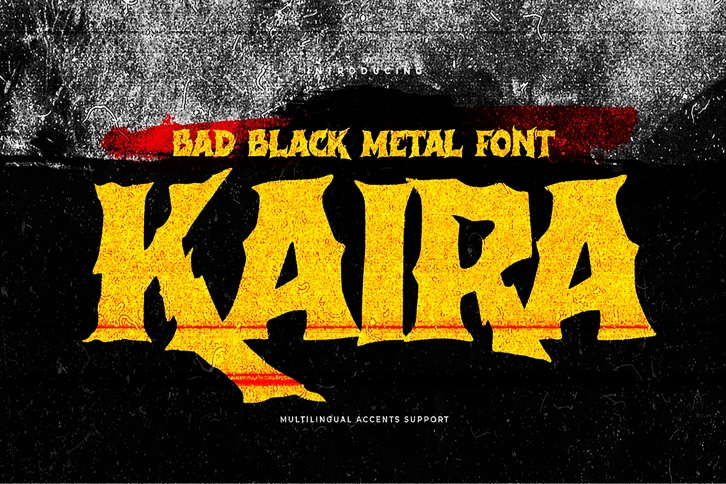
KAIRA is a beautiful font that was designed by Gassstype Studio. It's a great choice for designers and creatives who need such a font. It was released on June 26, 2022 and the file size is 16.10 MB. KAIRA may give a more youthful, expressive and casual look to your project. It is a very beautiful, refined, elegant, and high-quality font.